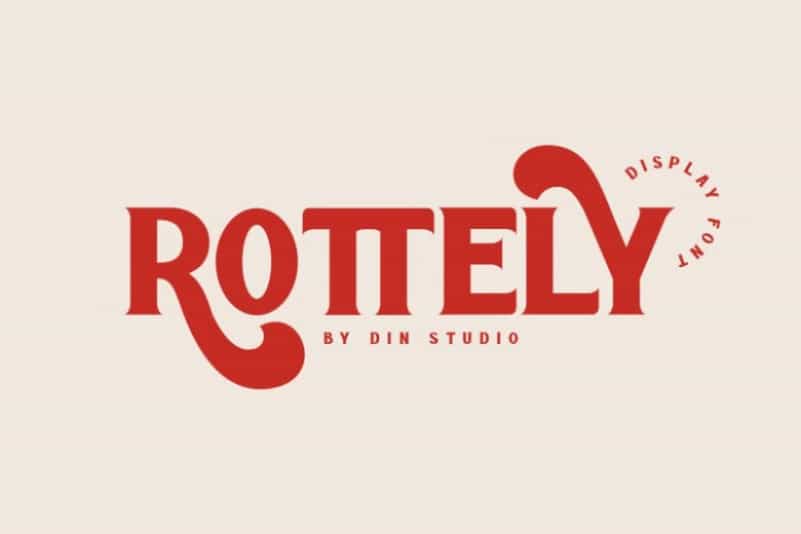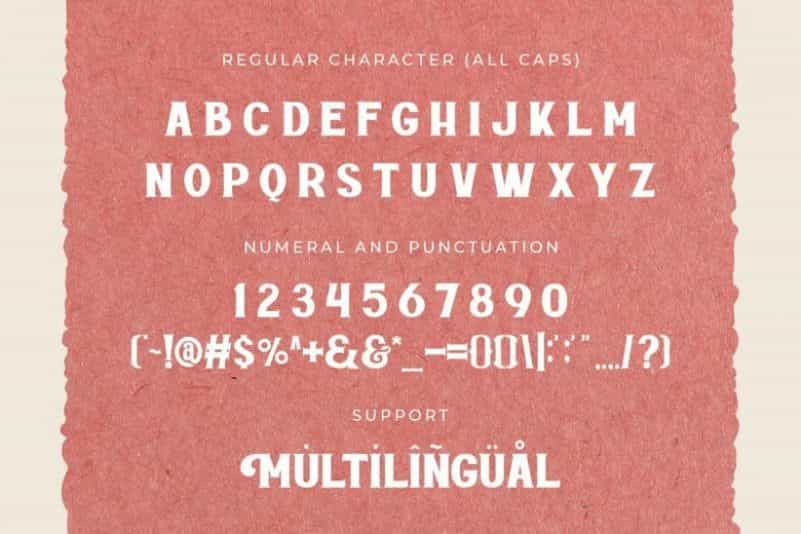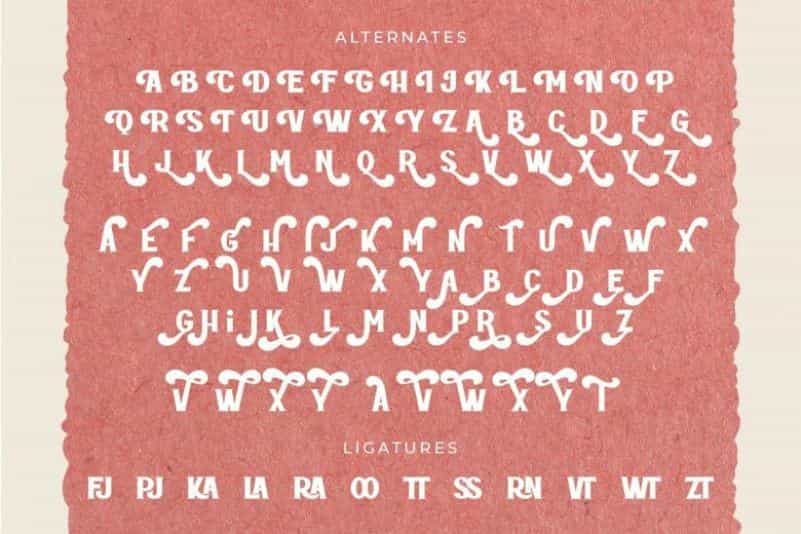
Thank you for looking Rottely Serif Font. This is an uppercase serif font with beautiful curves of each letter. This font is inspired by letters that are very beautiful from the past and combined with a modern appearance. It has a beautiful shape.